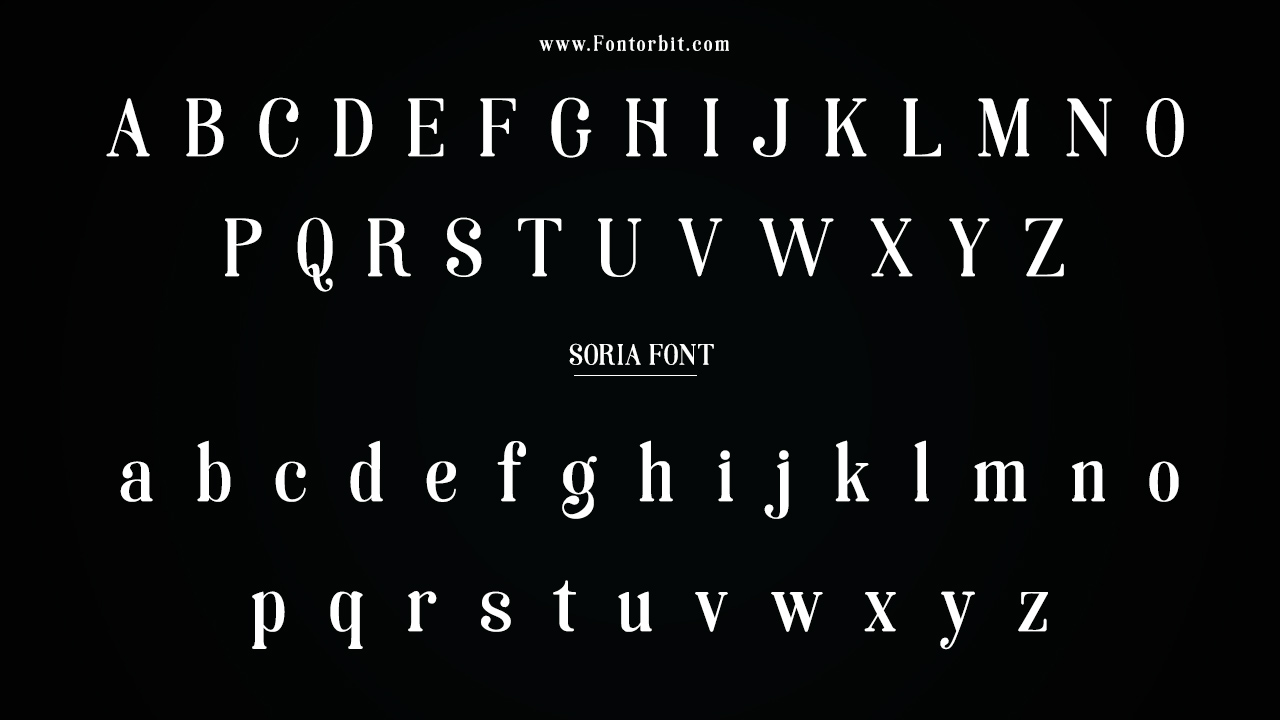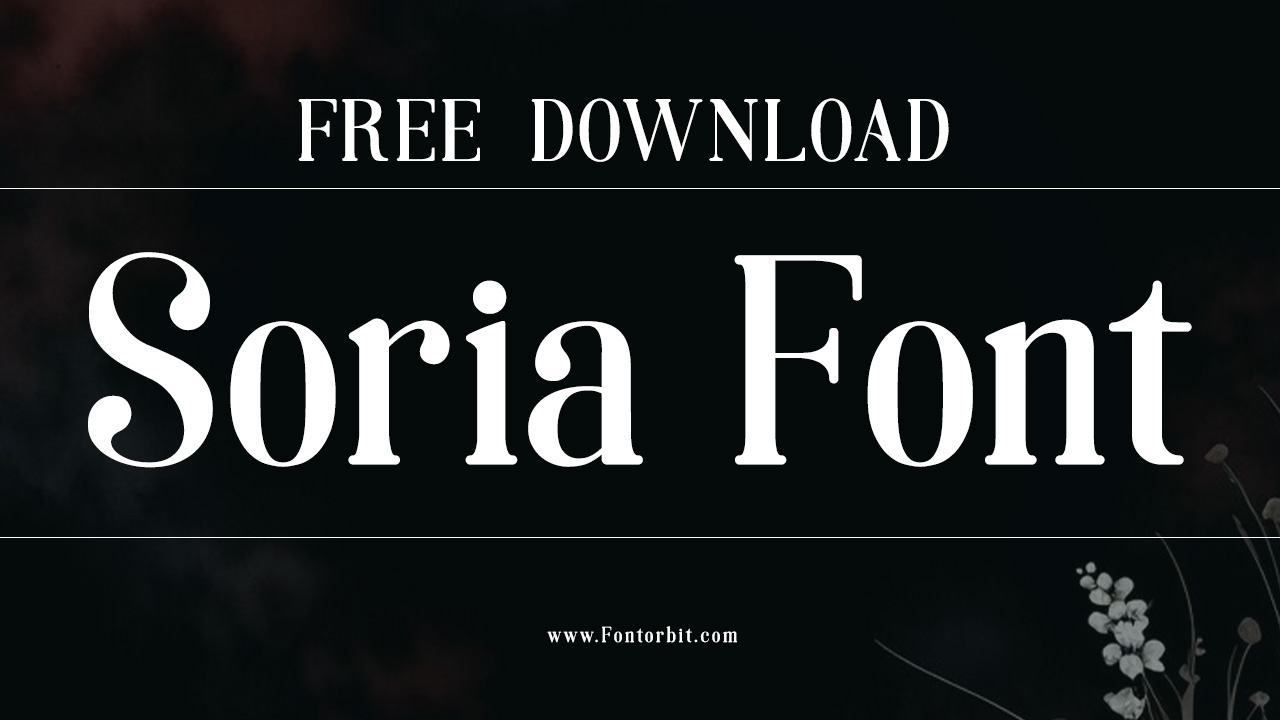
Soria is a stunning serif font inspired by the Art Nouveau movement and the elegance of Didot typefaces. Designed by Dani Bydani and published on March 22, 2016, this font offers a modern touch while maintaining a classic aesthetic, making it perfect for various design application
Notable Uses Of Soria Font
Soria is often utilized in diverse settings, such as:
- Book Covers
- Editorial Design
- Advertising
Soria is an excellent choice for:
- Headlines and Titles
- Logo Design
- Web and Print Media
Soria is a free font that beautifully combines modern elegance with classic inspiration. Its versatility makes it a valuable addition to any designer’s toolkit, perfect for displaying texts, logos, and more.